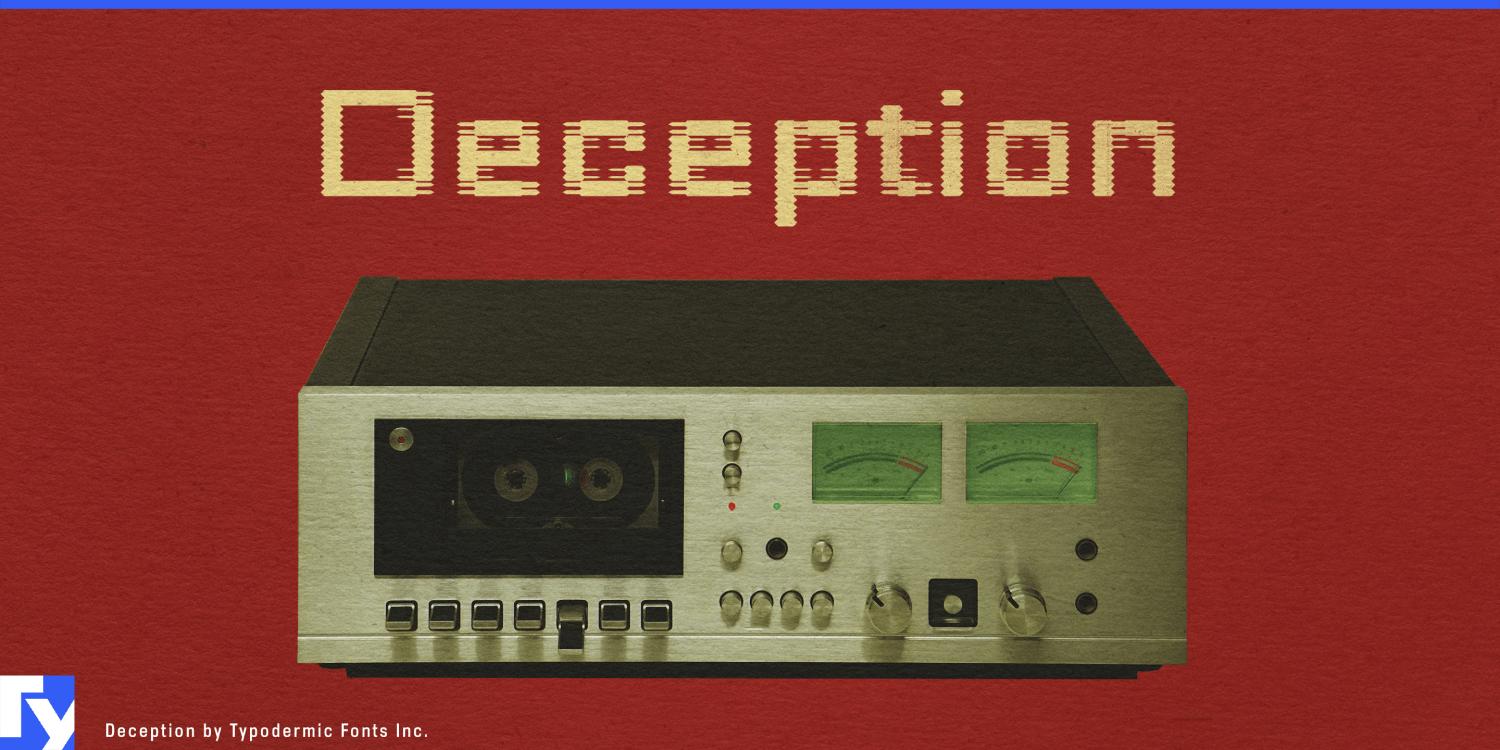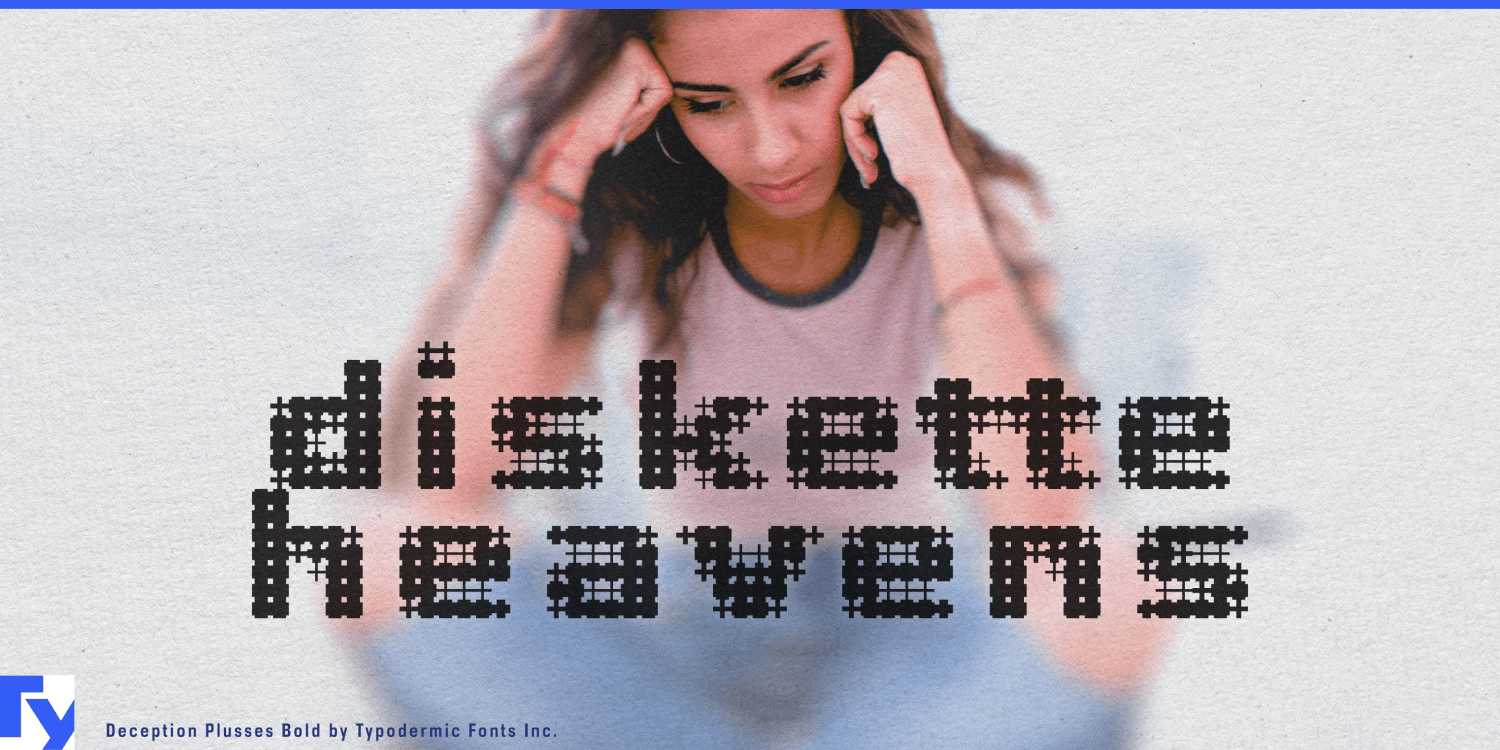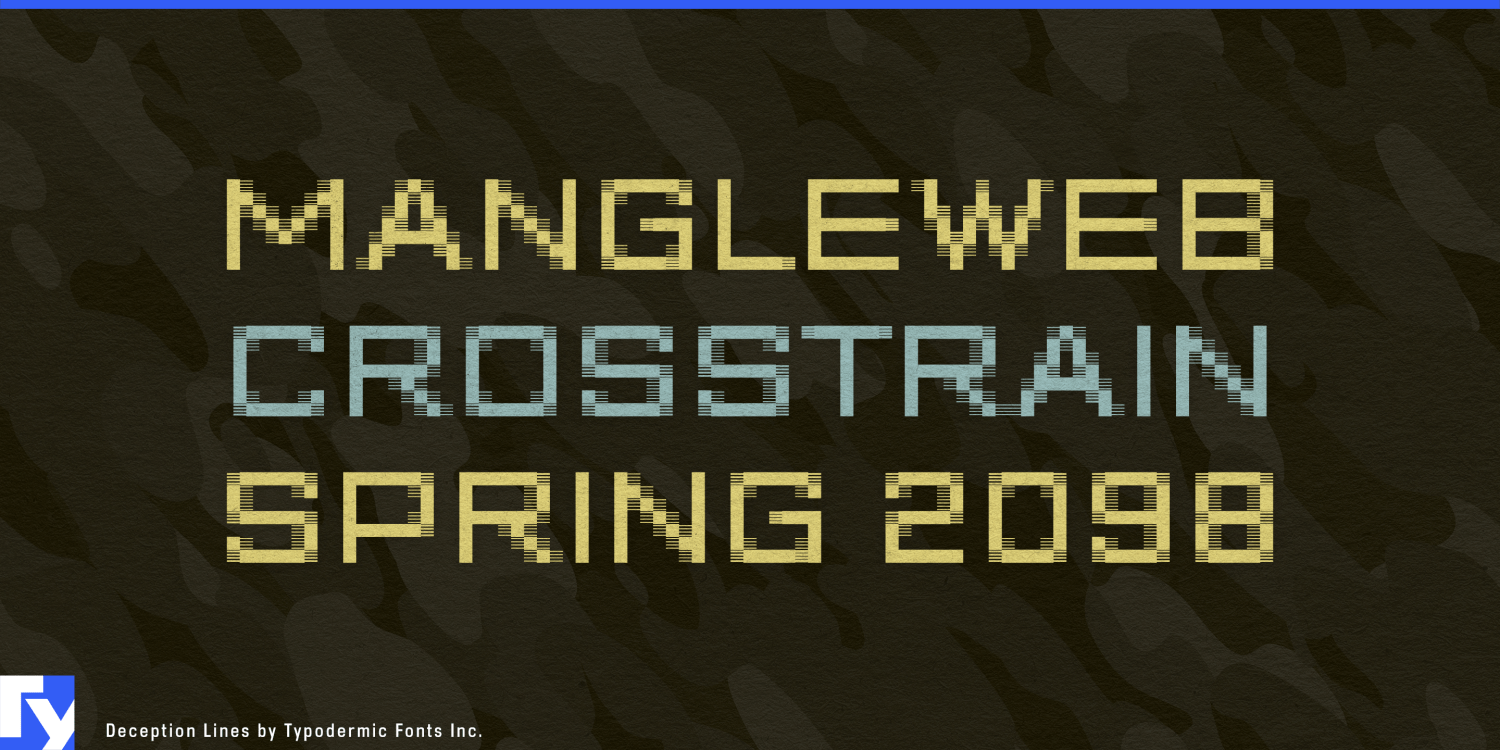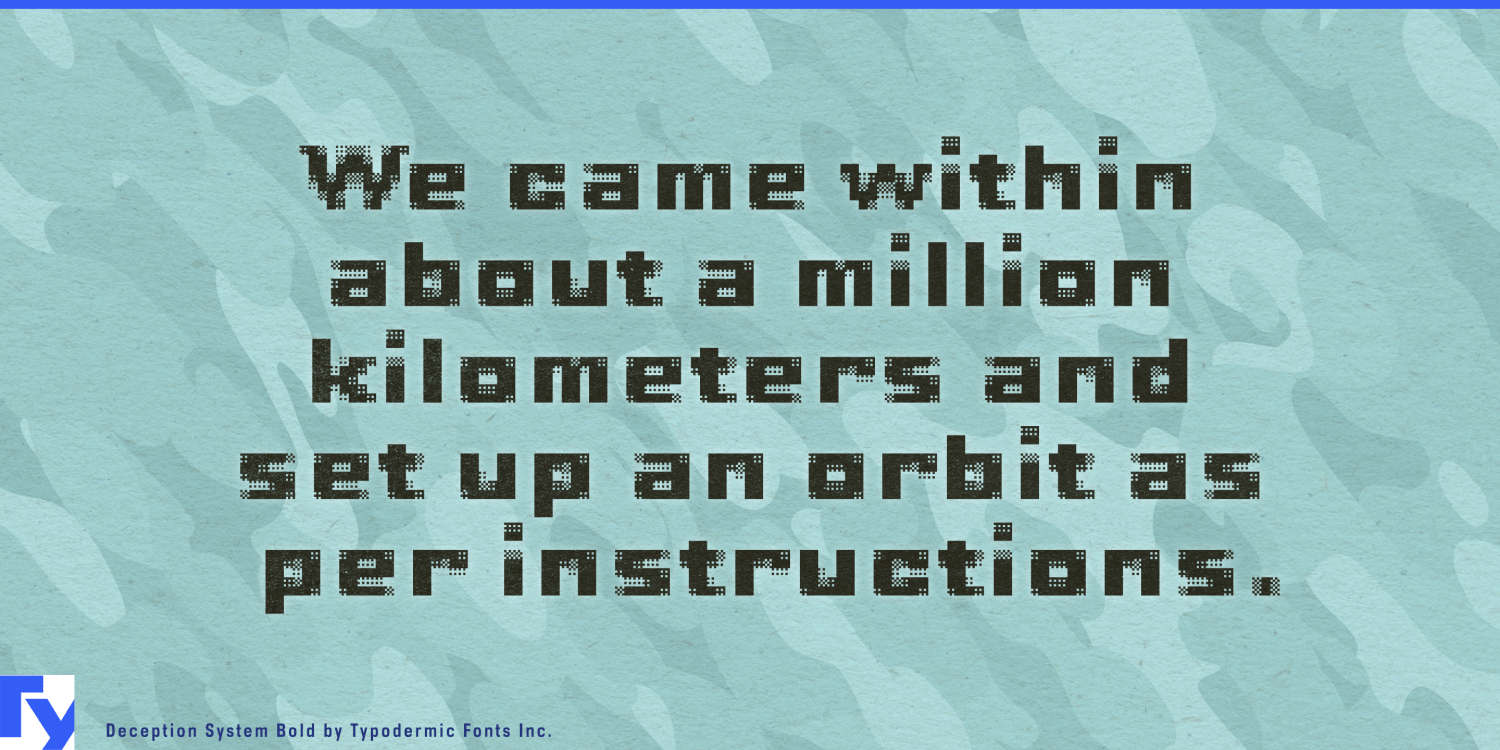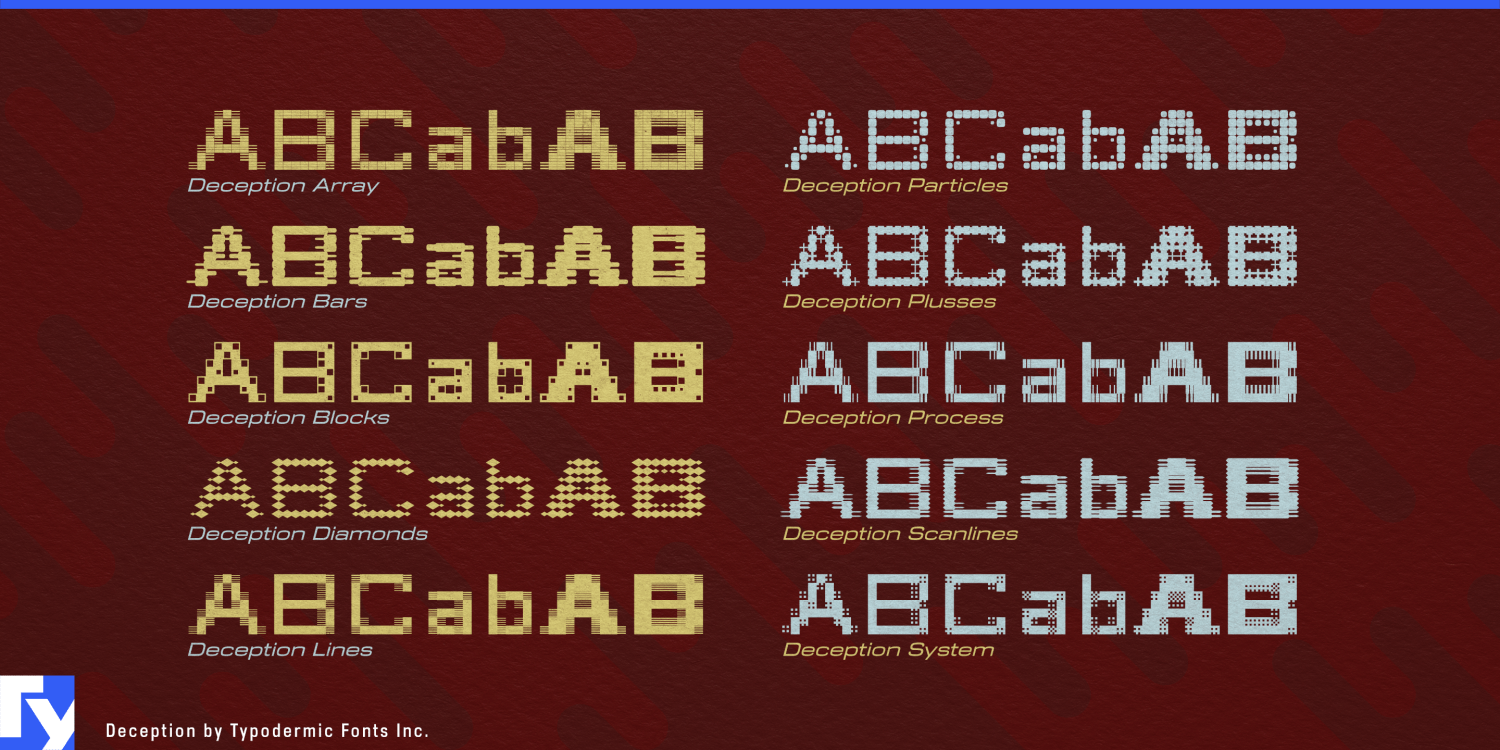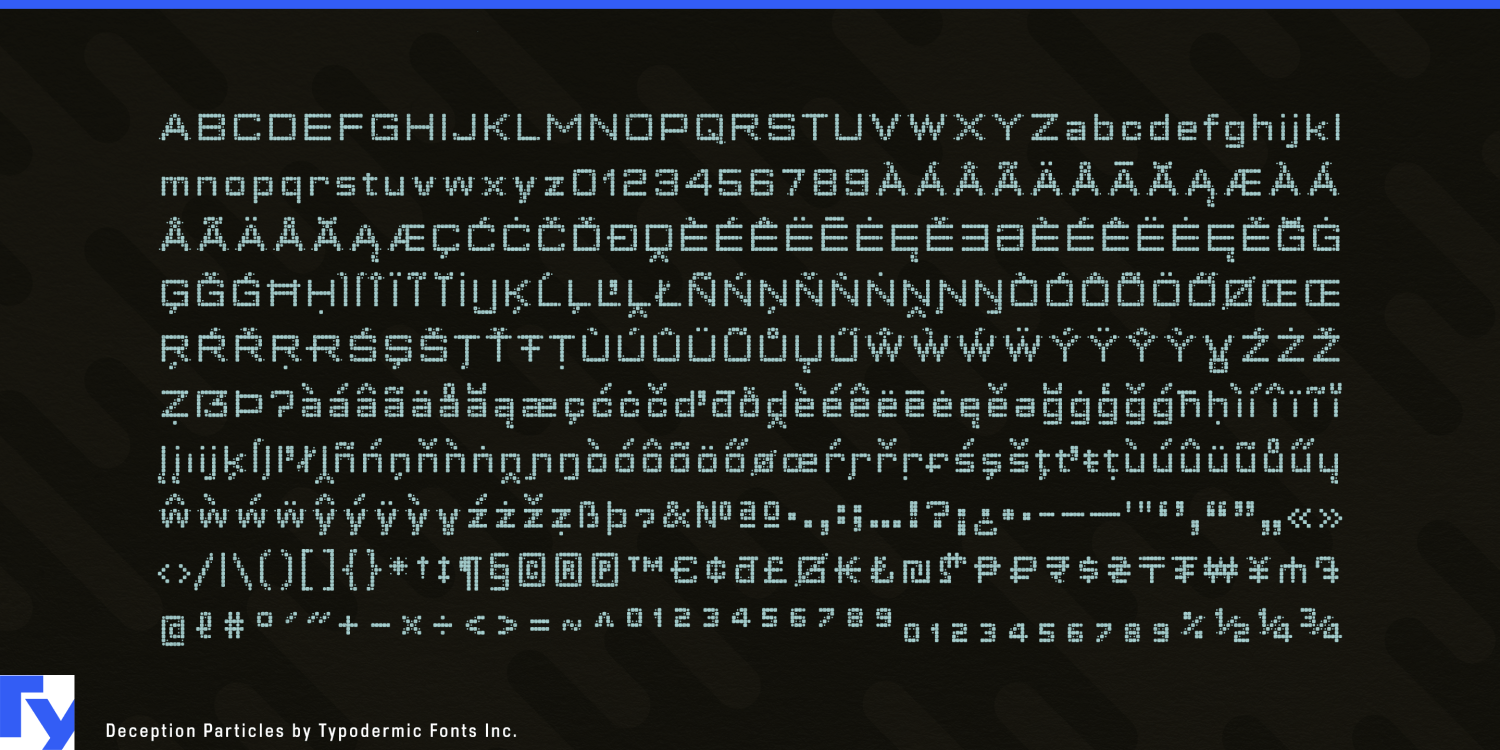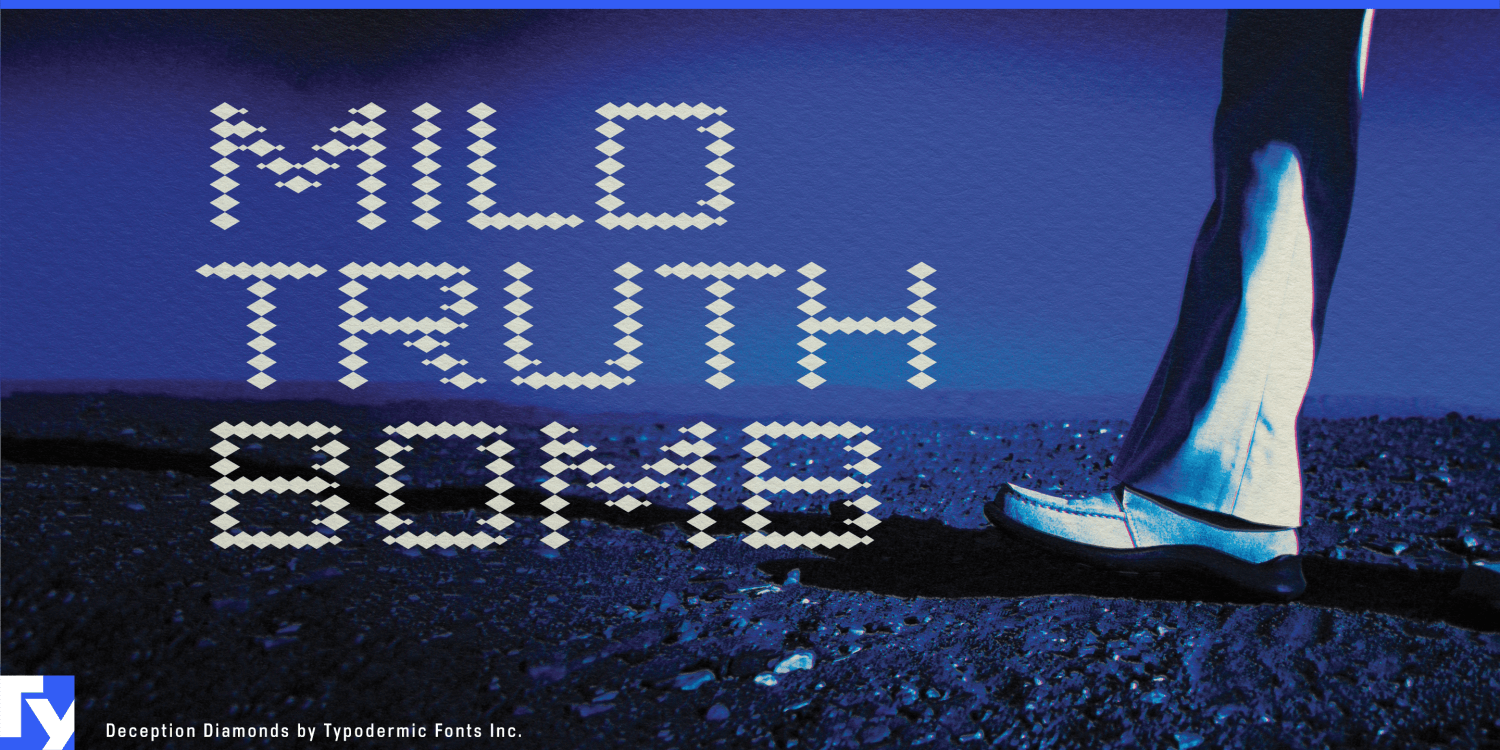
Deception
Images rarely arrive untouched. They are scanned, compressed, thresholded, enhanced, reconstructed, and sometimes fabricated. Projects concerned with uncertain visual evidence need typography that looks as though it has passed through the same systems. Deception converts a stable pixel alphabet into bands, blocks, particles, scanlines, and geometric fields, allowing the letters to carry traces of their own processing.
The family begins with four master pixel shapes and four tonal levels. Ten visual treatments translate that structure into dot fields, halftone bands, thermal-looking streaks, diamonds, grids, and scrambled textures. The letterforms remain consistent, so a design can move between different kinds of signal without abandoning its identity.
Media authenticity and digital forensics provide the strongest territory. Deepfake detection, content provenance, identity fraud, disinformation research, cybersecurity investigations, and media-literacy programs all deal with information whose origin or integrity is in doubt. Deception can give conference identities, documentary titles, report covers, awareness campaigns, and investigative graphics a processed surface that supports the subject.
Scientific imaging offers an equally convincing use. Satellite observation, weather radar, microscopy, medical imaging, ocean mapping, climate modeling, and remote sensing translate phenomena into pixels, bands, thresholds, and tonal fields. Research conferences, museum exhibits, instrument launches, educational animations, dataset publications, and large report titles can connect the typography with the captured evidence.
Camera and scanner manufacturers, display companies, digital-printing systems, machine-vision firms, and visual-effects studios can extend the same language into product communication. Trade-show graphics, demonstration reels, technical case studies, and launch campaigns can shift between treatments to suggest capture, processing, output, and interference. Museums and archives can apply the same vocabulary to exhibitions about computer graphics, electronic displays, telecommunications, digital preservation, and the history of recorded images.
Motion and large-format display reveal the family’s full range. A word can pass through bars, blocks, particles, diamonds, and scanlines across an LED wall, title sequence, projection, or interactive installation. A clean companion should carry data, instructions, captions, and dense reading; Deception handles titles, section openers, campaign language, stage graphics, and short display passages where processing is part of the message.